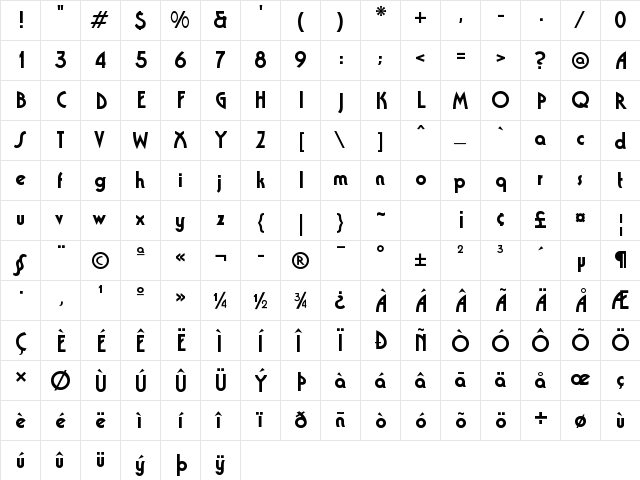
Tasmin Reference Regular
| Designer | David L. Crosby |
Design Context for Tasmin Reference Typeface
Tasmin Reference offers clean, dependable letterforms without strong stylistic allegiance, making it a practical choice for designers who need flexibility.